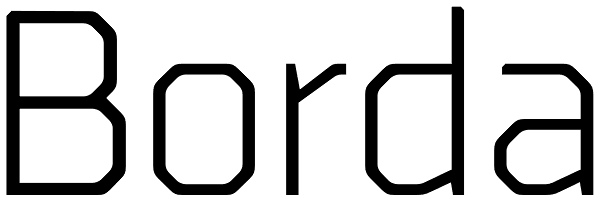
Borda
A carefully drawn geometric typeface. Exacting angles are combined with smooth corner details to form a clean, legible font with a modern appearance. The compact nature of the letterforms allows for great use of space across text layouts. Details...